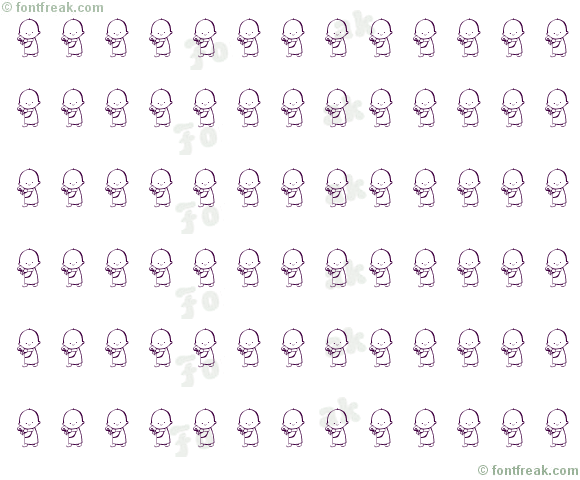
People
The People font, crafted by an unknown designer, embodies a whimsical and playful aesthetic, making it a unique addition to any typeface collection. This decorative font features charming, cartoon-like characters that bring a sense of joy and friendliness to any design. With a consistent stroke weight and minimal contrast, the font maintains a light-hearted feel while ensuring readability. The spacing is well-balanced, allowing for seamless integration into various projects without overwhelming the viewer.
Ideal for a variety of applications, the People font shines in contexts that require warmth and approachability. It is particularly well-suited for children's book covers, nursery decor, playful branding for family-oriented businesses, and event flyers for community gatherings. Graphic designers and small business owners will find this font especially valuable for projects aimed at engaging audiences in a light and friendly manner. Content creators looking to add a touch of personality to their digital content will appreciate the unique charm it brings.
What sets the People font apart is its ability to convey emotion through its whimsical design. Unlike traditional typefaces, it adds a playful element that can transform a simple message into an engaging visual experience. The font’s character-driven design invites viewers to connect on a personal level, making it an excellent choice for any project that aims to evoke joy and warmth. For those looking to incorporate a lively and inviting typeface into their designs, the People font free download is a fantastic opportunity to enhance creativity and expression. Overall, this font stands out in its ability to combine playfulness with functionality, making it a versatile tool for various creative endeavors.